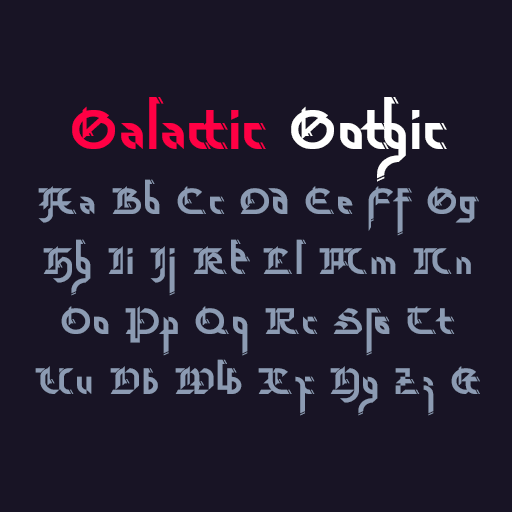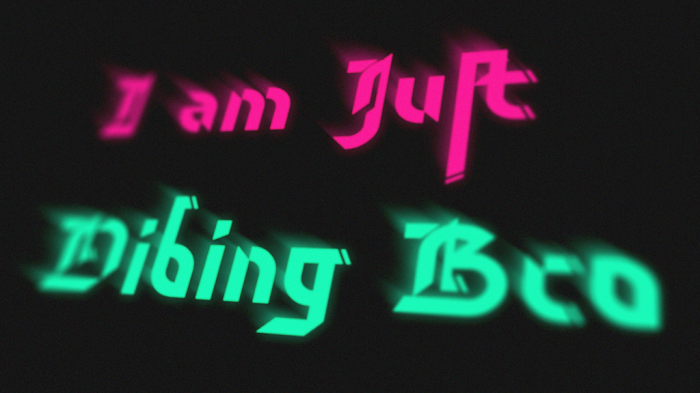
oops I fixed the Z glyph
Woah
The Z is much better now. I like your uppercase.
neat
i like this! a nice blend of futuristic and gothic ?
This is so beautiful.  I wish you had done some of the ligatures, like st (preferably with the long "f" s).
This intrigues me! Someone unfamiliar with Fraktur (example: me) would struggle with lowercase v and w though...
Congratulations! FontStruct Staff have deemed your FontStruction worthy of special mention. “Galactic Gothic” is now a Top Pick.
Um... why do A, D, h, k, r, s, v, and w look like that?